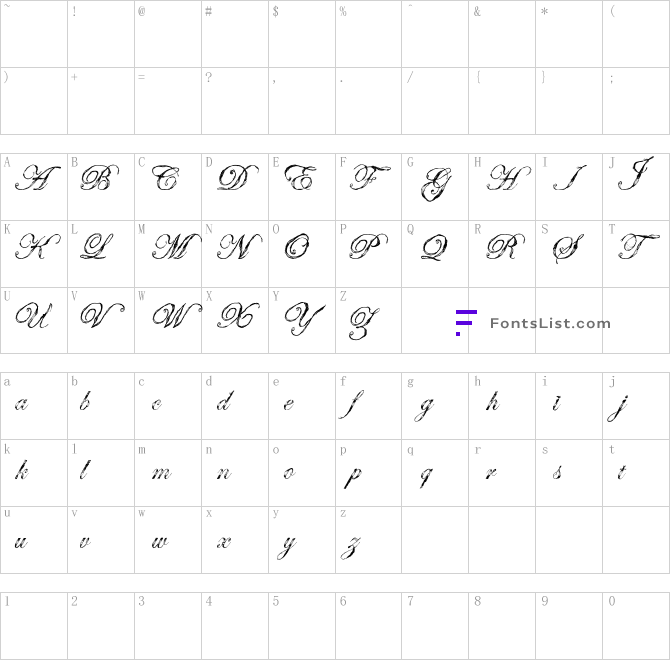
- Font Name:Antatomy
Antatomy-Antatomy.ttf is a very beautiful artistic font, Antatomy-Antatomy.ttf is widely used in the design and printing of various books and pictures,Antatomy-Antatomy.ttf has a strong visual impact,Antatomy-Antatomy.ttf is a commonly used font in newspapers, magazines and books, and is used in posters, e-commerce Poster design, store design, logo design, font design and other fields.Antatomy-Antatomy.